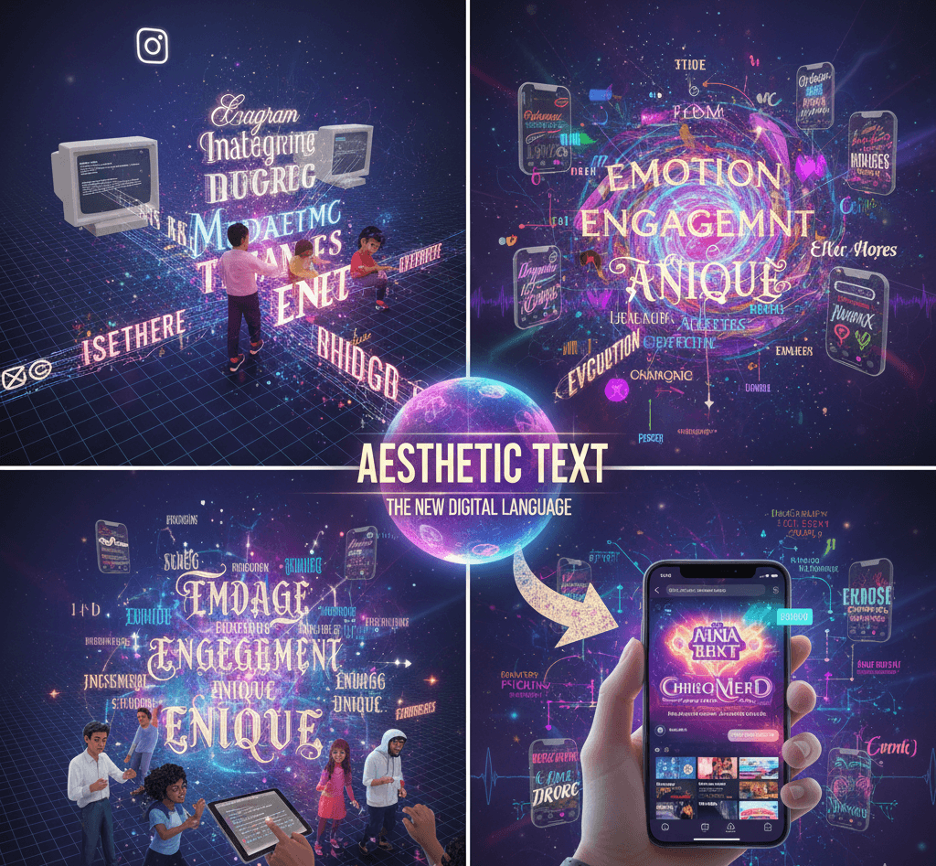
The Rise of Aesthetic Text: Why Stylish Fonts Dominate Social Media
Aesthetic text has become one of the most influential visual trends across social platforms. Everywhere you look, creators use stylish fonts to make their posts more expressive, unique, and engaging. The rise of this trend is not accidental. It reflects a shift in how people communicate digitally and how they use typography to stand out in crowded feeds.
Today, aesthetic text is no longer limited to graphic designers. Anyone can transform ordinary words into eye-catching styles with tools that offer simple copy and paste text decorations, helping users enhance their online presence with minimal effort.
What Makes Aesthetic Text So Popular
The popularity of stylish fonts comes from the desire to communicate tone and personality. Standard text feels flat in a fast-scrolling environment. Aesthetic typography gives users a way to express emotion visually and instantly.
Another reason for its rise is accessibility. What once required design software can now be created with a single tap. Influencers, small businesses, students, and casual users all take advantage of these tools to make their captions more memorable.
The Psychology Behind Stylish Fonts
Humans naturally respond to visual variation. When you scroll through social media, your attention is pulled toward anything that breaks the pattern. Unique fonts trigger that response. They make your eyes pause for a moment, which increases the chances that you will read or engage with the content.
Aesthetic text also supports emotional expression. A soft cursive font feels elegant and friendly while bold Unicode characters create a loud, energetic tone. This emotional layer helps users communicate not just what they say but how they feel.
How Social Media Changed Typography Trends
Social media has redefined typography. Before platforms like Instagram and TikTok exploded, fonts were mostly used in design software, websites, or printed materials. Now, fonts have become a part of personal branding. Every profile, caption, and comment can reflect a personal style.
The limited built-in formatting options on many platforms encouraged users to look elsewhere for creativity. This created a demand for generators, custom characters, and decorative text that works everywhere.
Why Creators Use Aesthetic Text to Build Their Brand
Consistency is essential for personal branding. Influencers and small creators often use a signature type style to create a recognisable voice. A unique text style can become just as iconic as a color palette or logo.
Stylish fonts also help increase story views, improve profile retention, and make posts more shareable. When visually appealing text grabs attention, engagement rates often rise.
Where Aesthetic Text Is Most Commonly Used
Aesthetic fonts appear across almost every platform, but they are especially popular in certain areas.
Instagram Captions and Bios
TikTok Comments and Overlays
On TikTok, creators use aesthetic text to make on-screen captions more dynamic. Unique character styles help keywords stand out, making content more readable and visually appealing.
YouTube Titles and Descriptions
Some creators use stylish fonts to make community posts or titles feel more expressive. Although YouTube limits where special characters display properly, the trend still appears in thumbnails and channel art.
Messaging Apps and Online Communities
Text decorations are extremely common in Discord, WhatsApp, and gaming platforms. Players and group members often use stylised text to show personality or make usernames more distinctive.
The Role of Unicode in Aesthetic Text
Unicode is the foundation behind almost every stylish font you see online. Instead of actual fonts, most aesthetic text generators use alternate Unicode characters that visually resemble different styles. These characters display consistently across most platforms, which is why they are so popular.
Because Unicode supports thousands of symbols, users have the freedom to create unique looks without needing special software.
Practical Tips for Using Aesthetic Text Successfully
Aesthetic text can enhance your content, but using it strategically makes a big difference. Here are practical guidelines to help you use stylish fonts in a way that feels natural and effective.
Use Decorative Text for Highlights
Reserve the most stylised characters for headers, keywords, or important points. This keeps your text readable while adding visual emphasis.
4. Are aesthetic fonts good for Instagram bios and captions?
They work very well when used thoughtfully. Stylish characters help highlight key phrases, create a memorable look, and reinforce personal branding. Many users apply them to their Instagram bio to instantly express their style.
5. How can I create aesthetic text easily?
You can use simple online tools that generate decorative characters instantly. These tools let you type a word and convert it into multiple styles you can copy and use across social media.